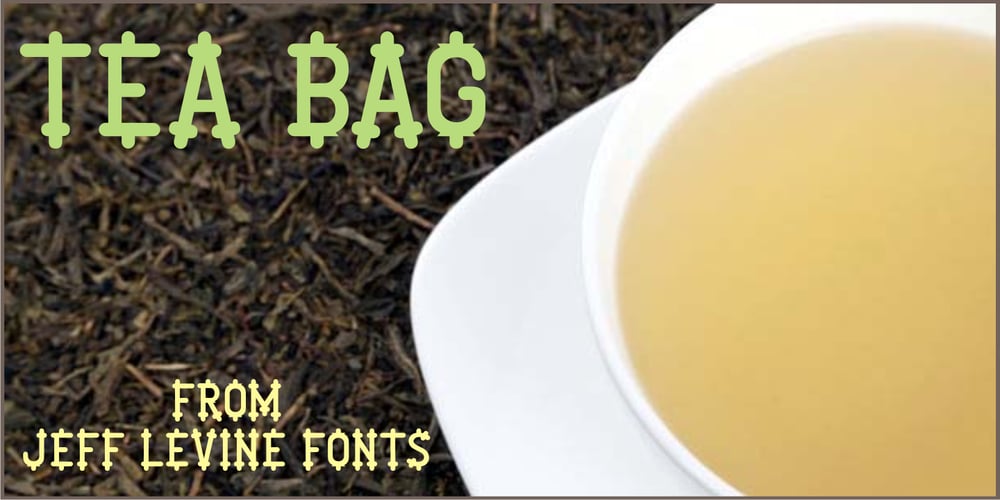
Tea Bag JNL Font Family was designed by Jeff Levine and published by Jeff Levine. Tea Bag JNL contains 1 styles and family package options. Inspired by a grocery store chain logo used up until 1975, this unusual Victorian-style typeface has a unique and interesting charm.